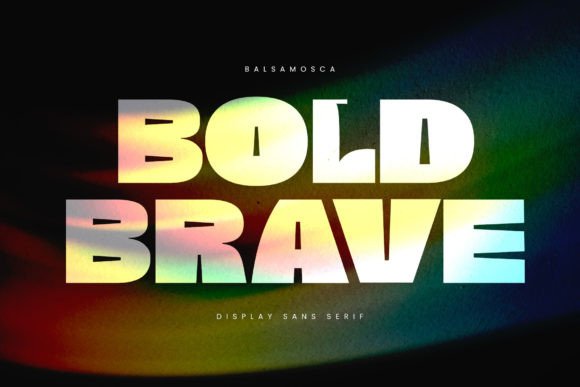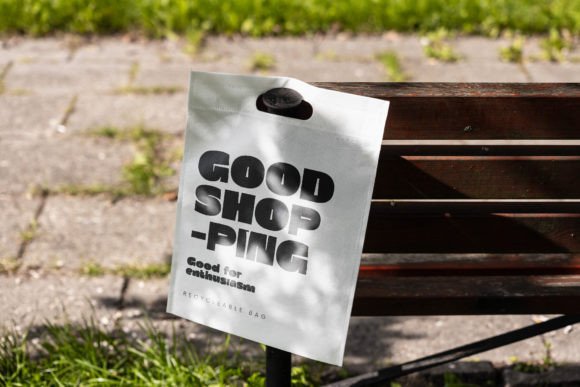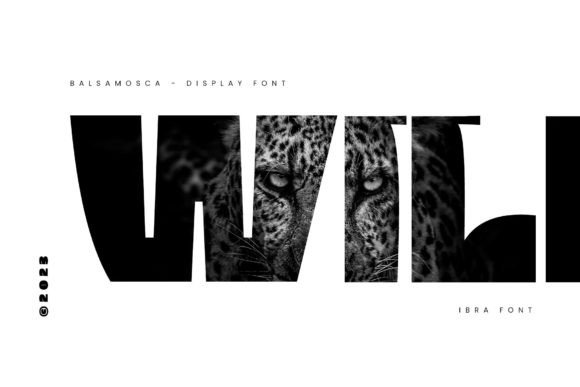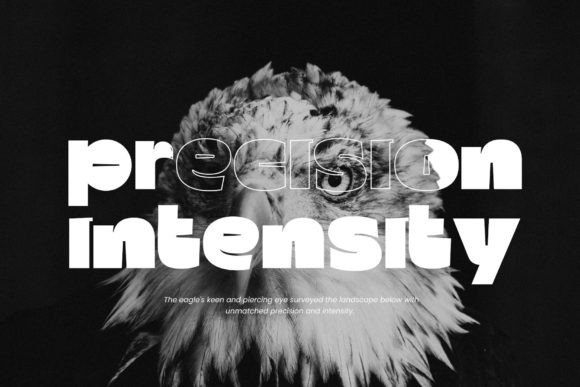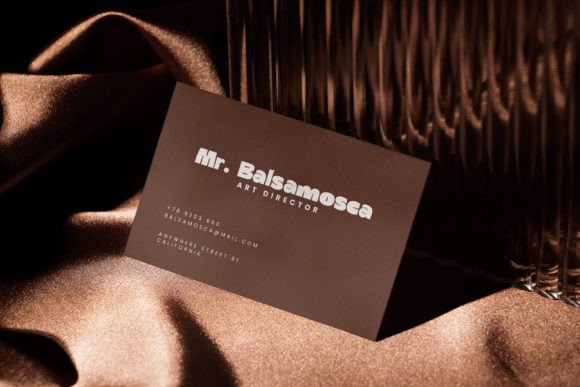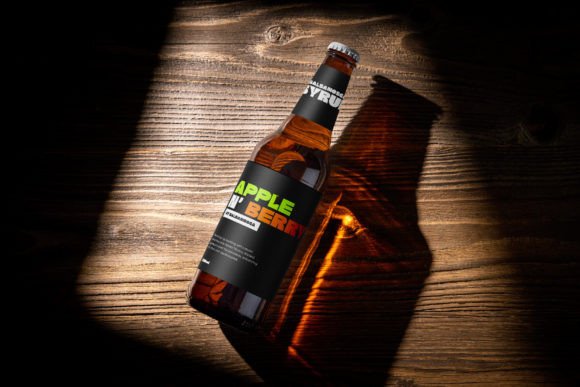
Balsamosca Font: Elevate Your Designs with Modern Elegance
In the world of typography, fonts play a crucial role in conveying the tone and aesthetic of a design. For designers and crafters seeking a modern and captivating display font, Balsamosca is an exceptional choice. This stunning sans-serif font is engineered to command attention while exuding a sense of contemporary minimalism.
The Essence of Balsamosca
Balsamosca is a display sans-serif font that boasts clean, bold lines and a geometric structure. Its sleek and professional appearance makes it perfect for a wide range of design applications, from branding and advertising to packaging and digital media. The font’s well-balanced proportions and carefully designed characters ensure that it remains legible and visually appealing, even at larger font sizes.
Key Features of Balsamosca
- Clean and Bold Lines: Balsamosca’s lines are meticulously crafted to provide a crisp and modern look, making it ideal for headlines, titles, and promotional materials.
- Geometric Structure: The font’s geometric structure adds a touch of sophistication and elegance, allowing it to seamlessly integrate with various design styles.
- Contemporary Minimalism: Balsamosca embodies the principles of modern minimalism, making it perfect for designers who appreciate simplicity and clarity.
- Well-Balanced Proportions: The font’s carefully balanced proportions ensure that each character is harmonious and aesthetically pleasing, contributing to its overall sleek and professional appearance.
Applications of Balsamosca
Balsamosca’s versatility makes it suitable for a wide range of design projects, including:
- Branding and Identity: Use Balsamosca to create bold and memorable logos, business cards, and letterheads that reflect your brand’s modern and sophisticated personality.
- Advertising and Marketing: Make a statement with eye-catching posters, flyers, and digital ads that showcase your message in a clear and compelling way.
- Packaging Design: Elevate your product packaging with Balsamosca’s modern and elegant typography, ensuring that your products stand out on store shelves.
- Digital Media: Enhance your website, social media, and digital content with Balsamosca’s clean and professional font, creating a cohesive and engaging user experience.
Why Choose Balsamosca?
In a world where typography plays a vital role in design, Balsamosca offers a unique combination of style, versatility, and functionality. By choosing Balsamosca, you can:
- Elevate Your Designs: Add a touch of modern elegance to your projects, setting them apart from the competition.
- Enhance Readability: Ensure that your message is conveyed clearly and effectively, even at larger font sizes.
- Streamline Your Workflow: With its wide range of applications, Balsamosca can be used across multiple design projects, saving you time and effort.
Balsamosca is a captivating display sans-serif font that offers a perfect blend of modernity, elegance, and functionality. Its clean lines, geometric structure, and well-balanced proportions make it an excellent choice for designers and crafters seeking to elevate their designs. Whether you’re working on branding, advertising, packaging, or digital media, Balsamosca is sure to make a lasting impression.